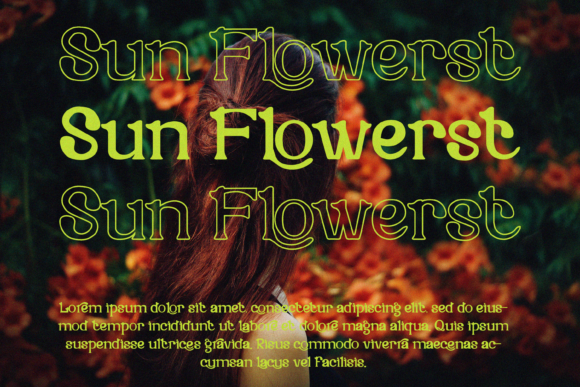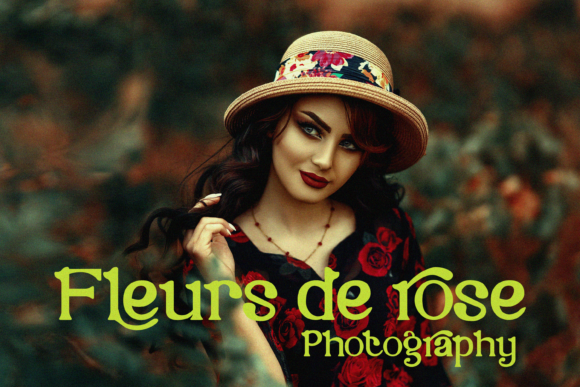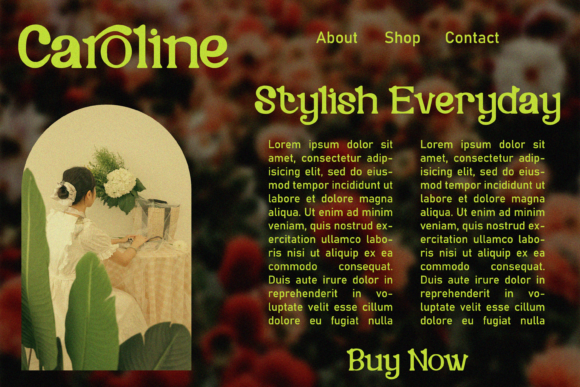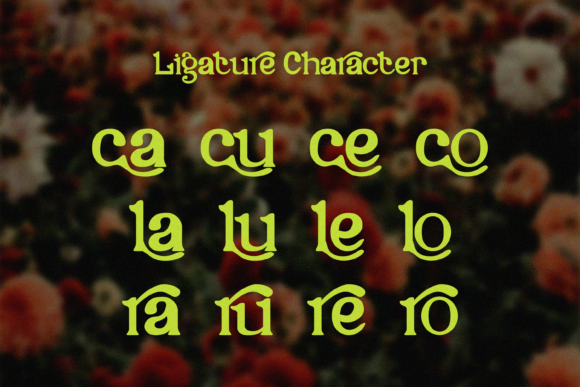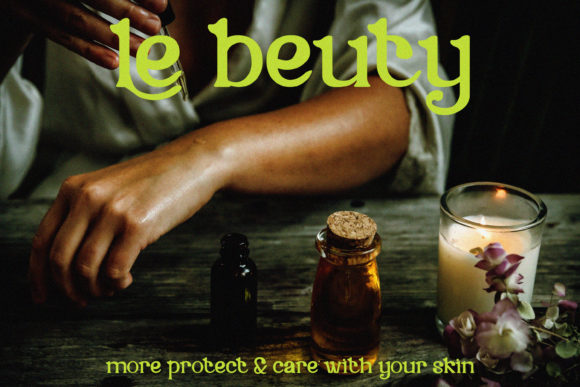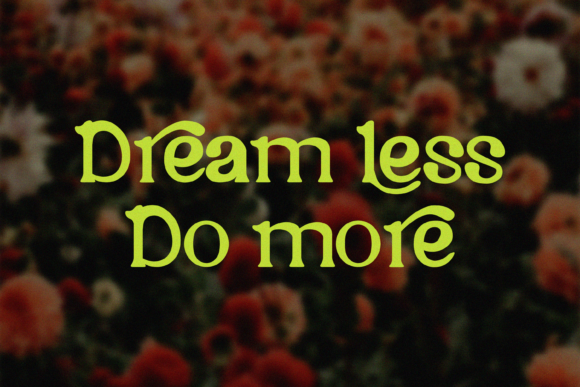
The Calarosta Font: A Designer’s New Best Friend
Have you ever been stuck on a design project, scrolling through font after font, trying to find that perfect match? I recently had one of those moments while working on a branding project for a client. They wanted a font that was both elegant and versatile, with a clean and unique look. That’s when I stumbled upon the Calarosta font, and let me tell you, it’s been a game-changer.
First Impressions: A Love at First Sight
The Calarosta font family is a beautifully crafted serif font, designed with precision in each glyph character. Its clean and unique look makes it perfect for a wide range of design projects, from logo branding and product designs to quotes, posters, and website headers.
- ✨ **Versatility**: Calarosta is a highly versatile font family that can be used for both print and digital projects.
- ✅ **Clean and Unique Design**: The font’s clean and unique design makes it perfect for creating stunning visual designs.
- 💯 **High-Quality Glyphs**: Each glyph character is carefully crafted with precision, ensuring a high-quality look.
- 🎨 **OpenType Features**: The font comes with a range of OpenType features, including stylistic alternates and glyphs.
While Calarosta is an amazing font, there are a few things to keep in mind:
- 🤔 **Not Suitable for Body Text**: While Calarosta is perfect for headings and titles, it may not be the best choice for body text due to its serif nature.
The Story Behind Calarosta
Calarosta was designed by a team of typographers who wanted to create a font that was both beautiful and functional. The font’s name is inspired by the Italian word for “beautiful rose,” reflecting its elegant and refined design.
Q: What is the Calarosta font?
A: Calarosta is a versatile and unique serif font family, designed for a wide range of design projects, from logo branding and product designs to quotes, posters, and website headers.